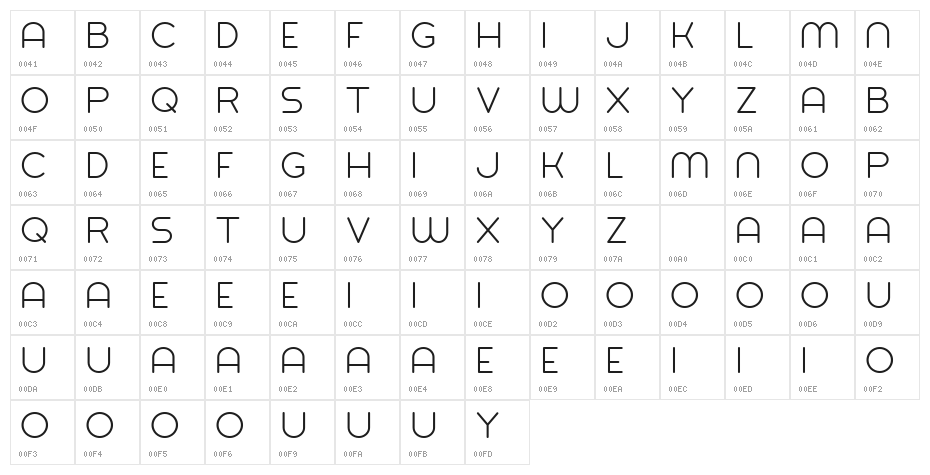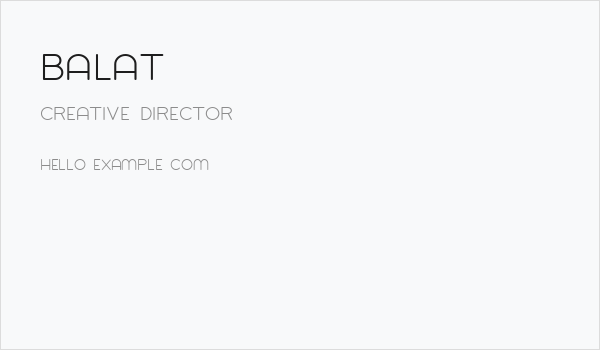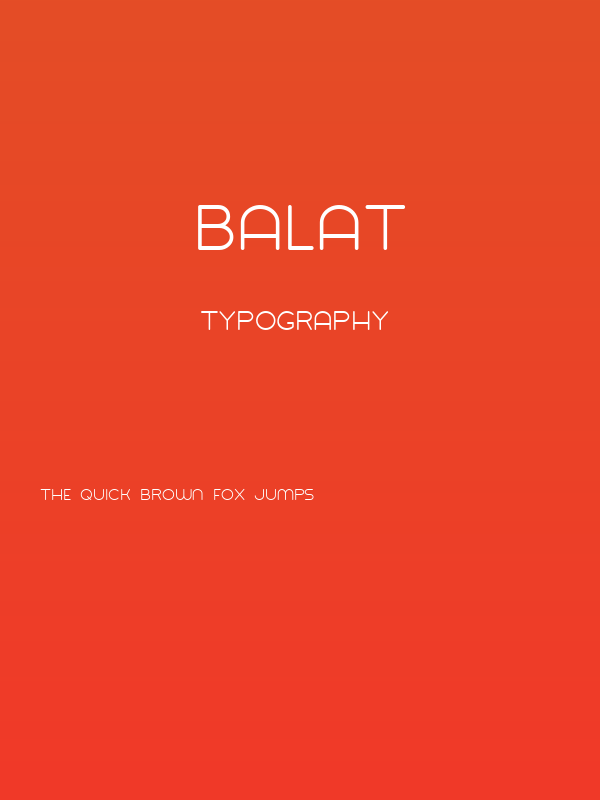
Balat Font
Balat Description
This font features a clean and modern sans-serif style with rounded edges and a geometric structure. The characters are evenly spaced, providing a balanced and harmonious appearance. The uppercase and lowercase letters maintain a consistent height, contributing to its uniform look. The numerals and special characters are designed to match the overall aesthetic, ensuring versatility across different uses. Its simplicity and clarity make it suitable for a wide range of applications, from digital interfaces to print media.
| Proposed Projects | Ideal for branding, web design, user interfaces, and print materials where clarity and modernity are desired. |